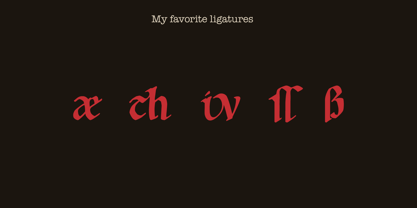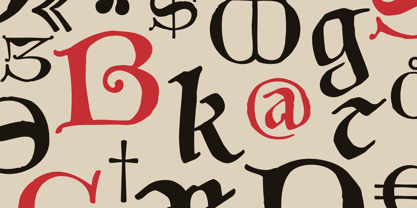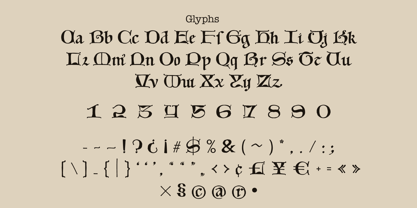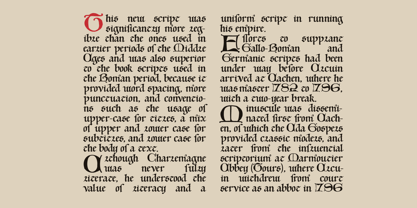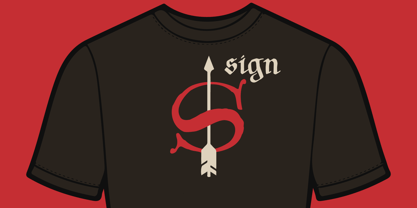
Carolingian Medieval
by Kaer
The Carolingian Medieval Font Family was designed by Roman Korolev and published by Kaer. Carolingian Medieval contains 1 styles. More about this family
I'm happy to present you my new Middle Ages font from Historia de sancto Willigiso.
The manuscript, created in the mid-12th century, is one of the earliest monuments of Western European book art. It was written in Carolingian minuscule, a script that uses only lowercase letters.
* Uppercase and lowercase
* Numbers and symbols
* Multilingual support
* Ligatures